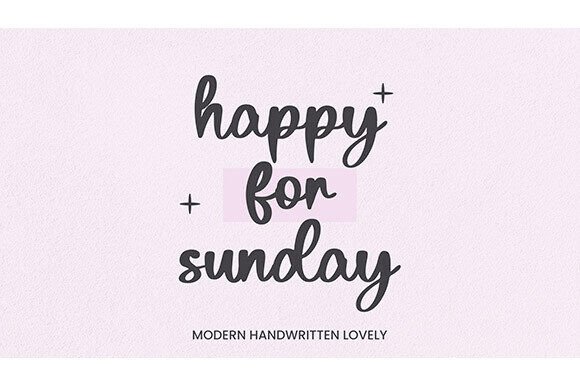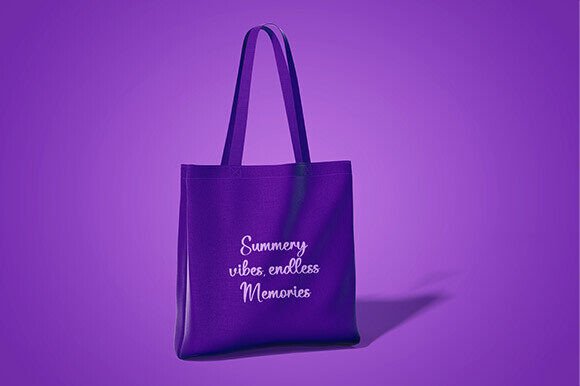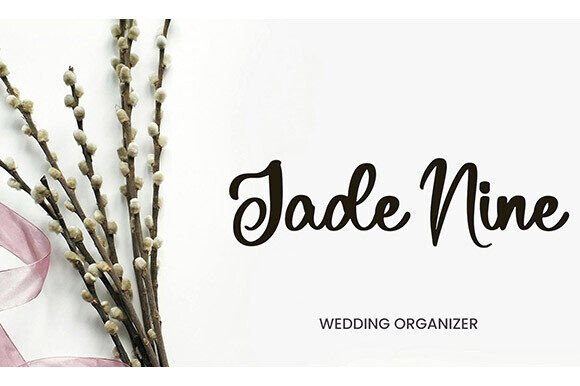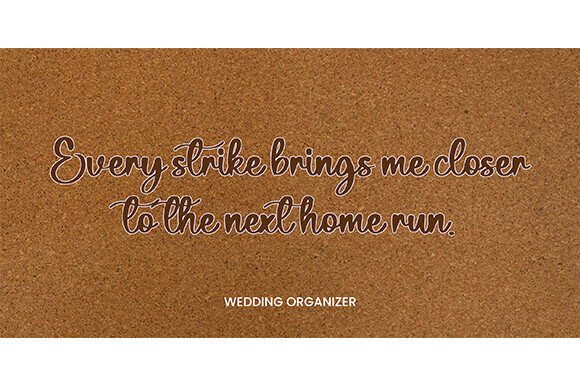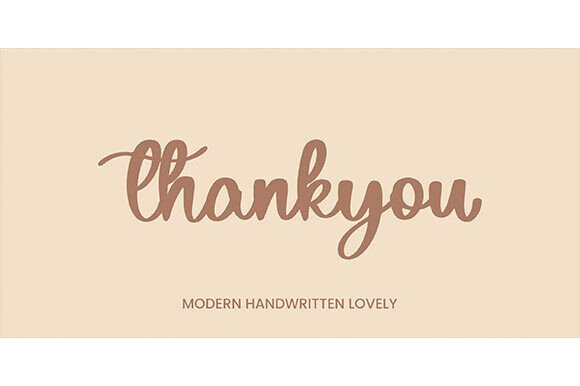
Introduction to Meymine Font
Meymine is a stylish and incredibly elegant script font.
Key Features of Meymine Font
Why Choose Meymine Font?
Meymine Font offers exceptional quality and versatility, making it a valuable addition to your design toolkit. Whether you’re creating for personal projects or commercial use, Meymine Font delivers professional results.